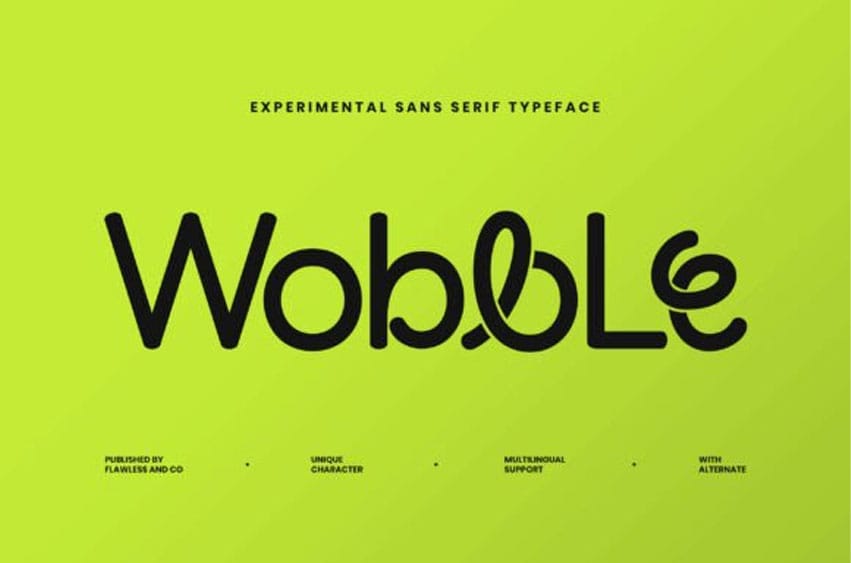
Wobble Font is a bold and playful experimental sans-serif font that bends the rules of traditional typography. With its twisted letterforms, dynamic curves, and offbeat rhythm, it adds instant personality to any creative project. Each character dances with movement, making Wobble feel alive—perfect for work that calls for unconventional charm and confident design.
Designed for creators who dare to be different, Wobble includes a set of alternate lowercase characters, offering even more ways to express your unique vision. It also features multilingual support, allowing global versatility without compromising style. Whether you’re designing for editorial layouts, bold branding, expressive posters, or modern packaging, Wobble invites you to create with freedom and fun.
Modern Experimental Sans Serif
Font Characteristics:
Category: Sans Serif
Style: Experimental / Artistic
Tone: Futuristic, edgy, human-centered
Features: Twisted terminals (like the ‘s’), smooth curves, creative ligatures (such as in “u” and “m”), and unconventional form balance.
This font is ideal for branding, fashion editorials, conceptual posters, and art-forward digital media—anywhere design meets identity and storytelling.